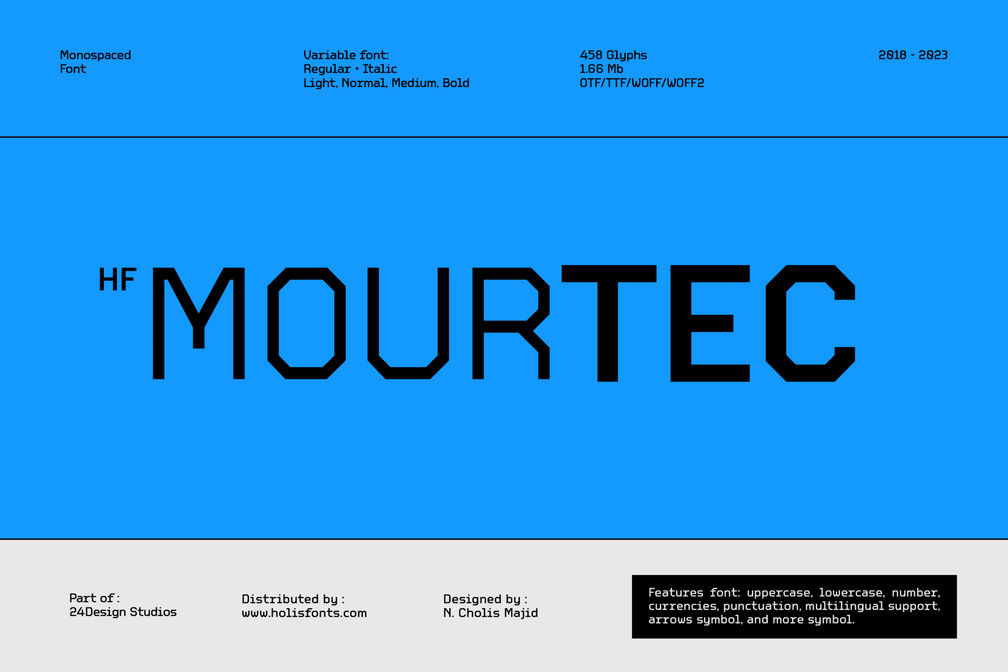
HF Mourtec Monospaced
HF Mourtec is a modern style font with sharp corners on each character, giving a sophisticated and high-tech impression, designed for things related to science, technology, the internet, and etc. The font is equipped with 458 glyphs which can support many languages around the world. Variable font 8 axes Light, Normal, Medium, Bold with two styles, normal and italic with a slope that is not excessive.
• Variable Font
• Light, Regular, Medium, Bold
• Light Italic, Italic Medium, Italic Bold
• Uppercase
• Lowercase
• Punctuation
• Number
• Currency
• Arrows Symbol
• Multilingual Support ( Almost all latin language)